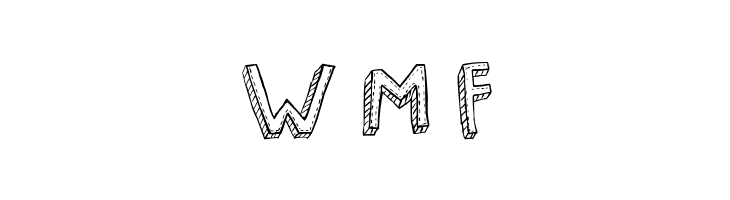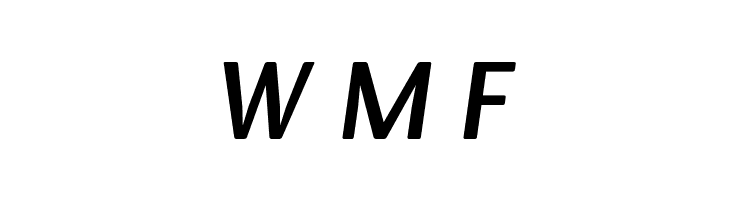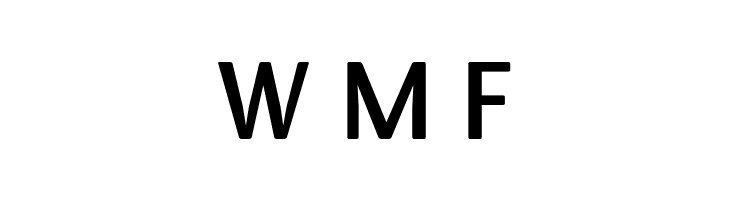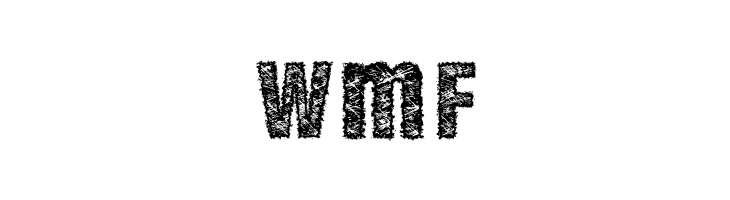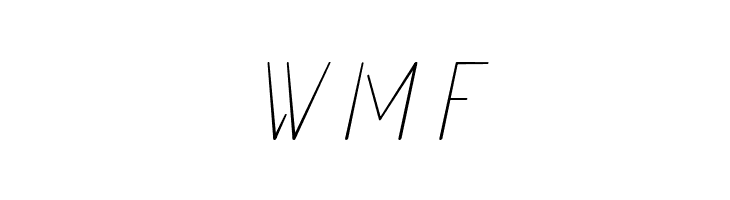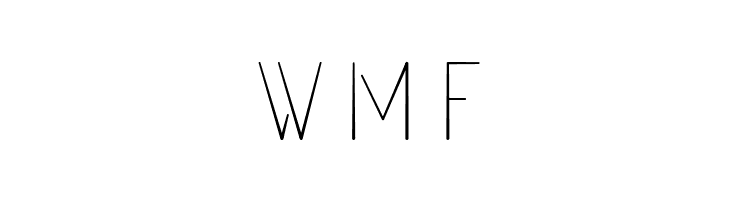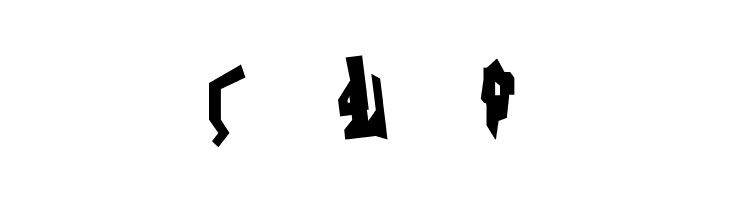
A modern, rounded sans-serif font with a clean and minimalistic design.
A dynamic and expressive handwritten font with irregular strokes.
A bold, 3D geometric font with a shadow effect for striking visual impact.
A bold, 3D italic font with a modern and dynamic style.
A modern, condensed font with tall, narrow characters and a sleek appearance.
A modern, geometric font with tall, narrow characters and medium contrast.
A sleek, elongated font with thin strokes and a modern, elegant style.
A sleek, modern font with elongated, italicized characters and a light, airy appearance.
A sleek, modern font with elongated, narrow characters and a minimalistic style.
A sleek, modern, and slightly slanted font with elongated, narrow characters.
A bold, geometric font with a modern and uniform appearance.
A bold, geometric font with a condensed and modern style.
A modern, narrow font with a sleek and elegant design.
A bold, geometric font with a modern and structured design.
A modern, geometric font with clean lines and a sleek appearance.
A vintage, distressed font with a hand-crafted, rustic appeal.
A geometric, angular font with a futuristic and abstract design.
A bold, geometric font with sharp angles and a futuristic look.
A decorative inline font with Art Deco influences and high contrast strokes.
A tall, narrow font with elegant inline detailing and a modern style.
A tall, narrow font with elegant inline details and a modern aesthetic.
A bold, geometric font with a vintage yet modern appeal.
A bold, geometric font with decorative elements and a vintage touch.
A bold, vintage-style font with rounded edges and strong visual impact.
A playful and whimsical font with bold, dynamic strokes and unique shapes.
A bold, 3D italic font with a futuristic and dynamic style.
A bold, geometric 3D font with outlined characters and a modern, industrial feel.
A bold, italicized font with a dynamic, modern style and strong geometric features.
A bold, geometric font with thick outlines and sharp angles.
A bold, condensed font with geometric, angular design.
A bold, condensed, and italic font with high contrast and a modern, dynamic style.
A bold, geometric font with an expanded width and angular design.
A bold, italic, and expanded font with a modern, dynamic style.
A bold, italic, and angular font with a futuristic style.